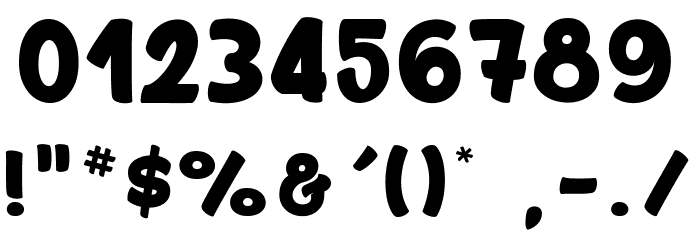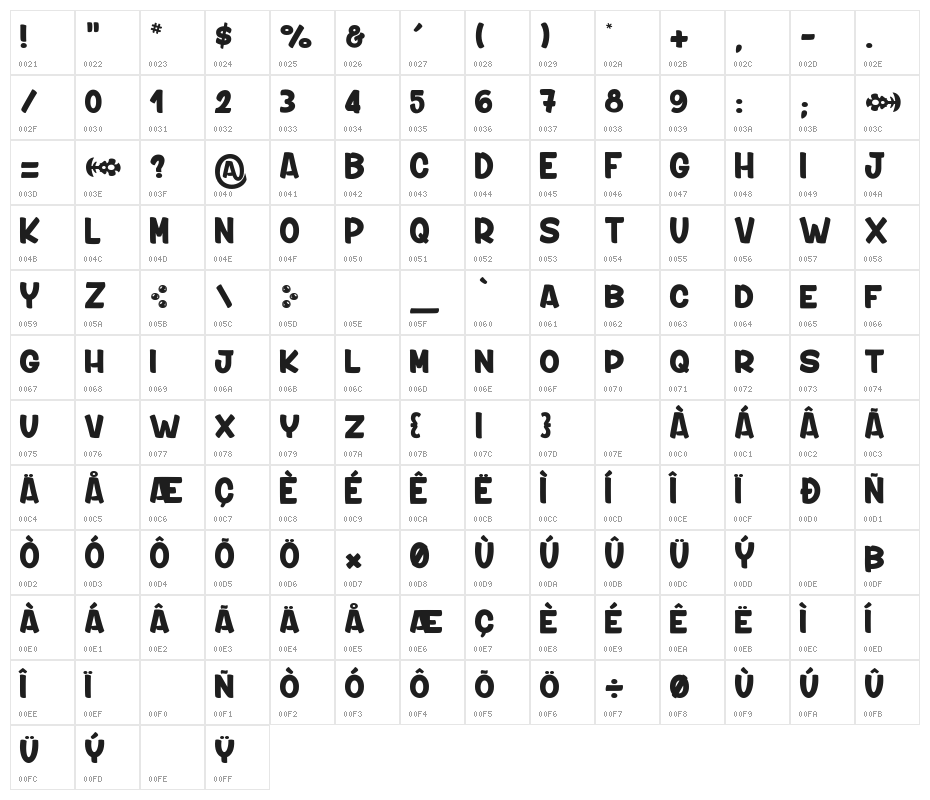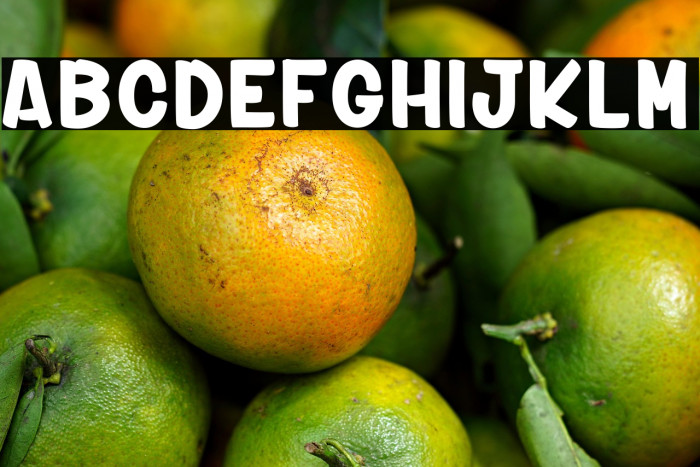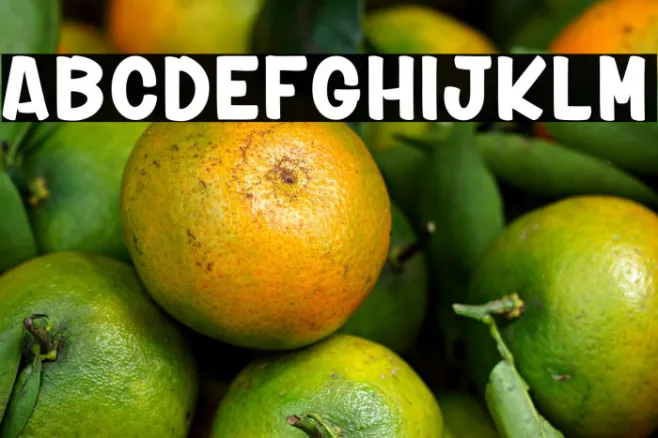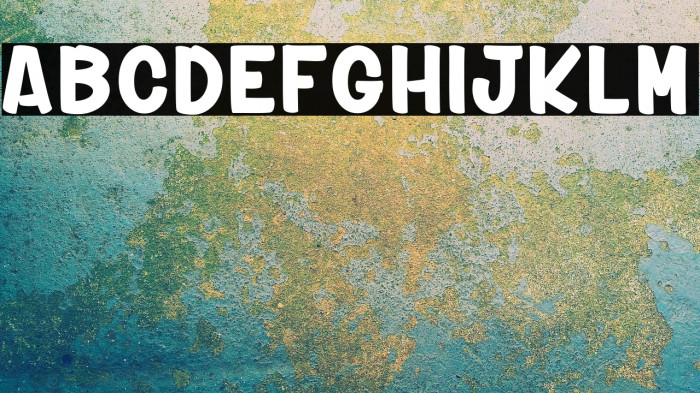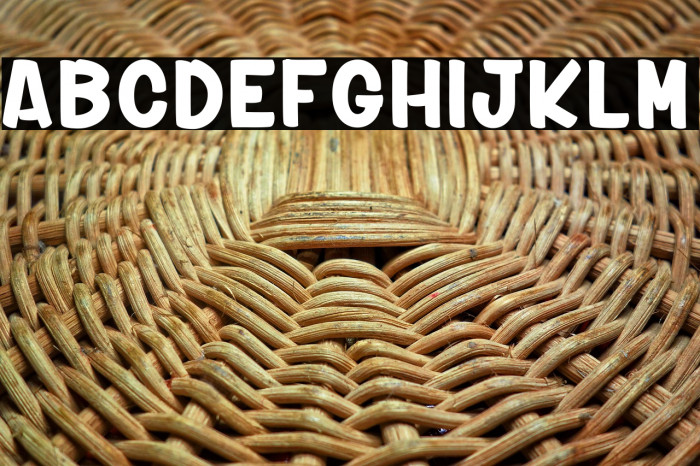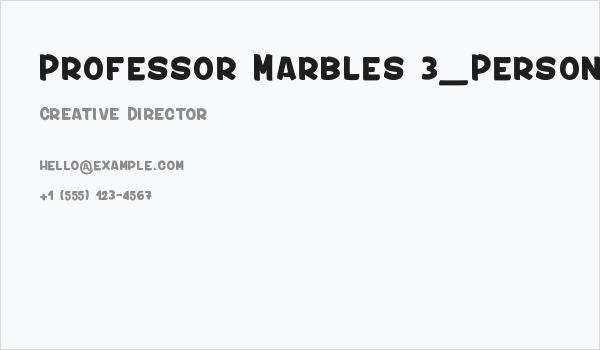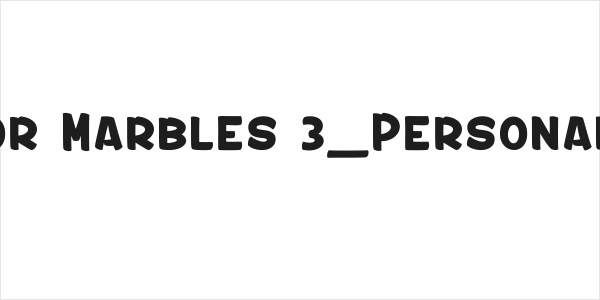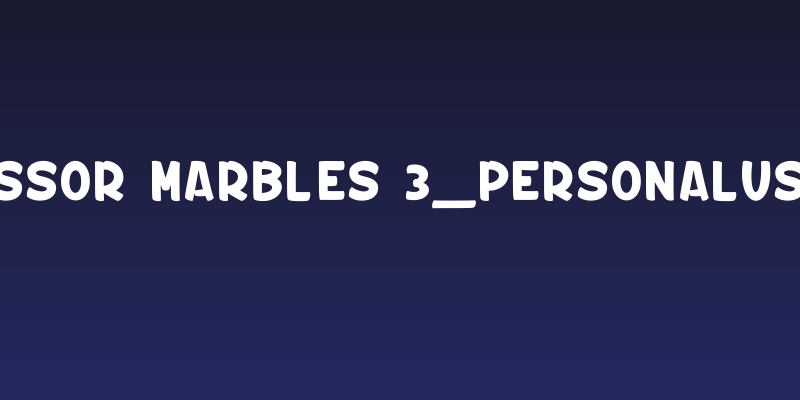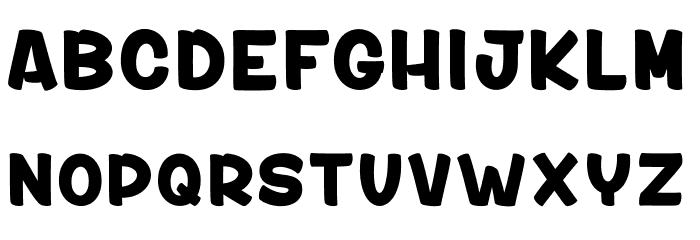
Professor Marbles 3_PersonalUseOnly Font
Professor Marbles 3_PersonalUseOnly Description
This font features bold, rounded characters with a playful and friendly appearance. The letters are thick and uniform, giving them a strong presence on the page. The rounded edges and consistent stroke width contribute to a soft, approachable feel. The numbers and special characters maintain the same playful style, ensuring a cohesive look across different uses. This font is highly legible and stands out due to its boldness, making it suitable for attention-grabbing designs.
| Proposed Projects | Ideal for children's books, playful branding, posters, and any design requiring a fun and approachable look. |